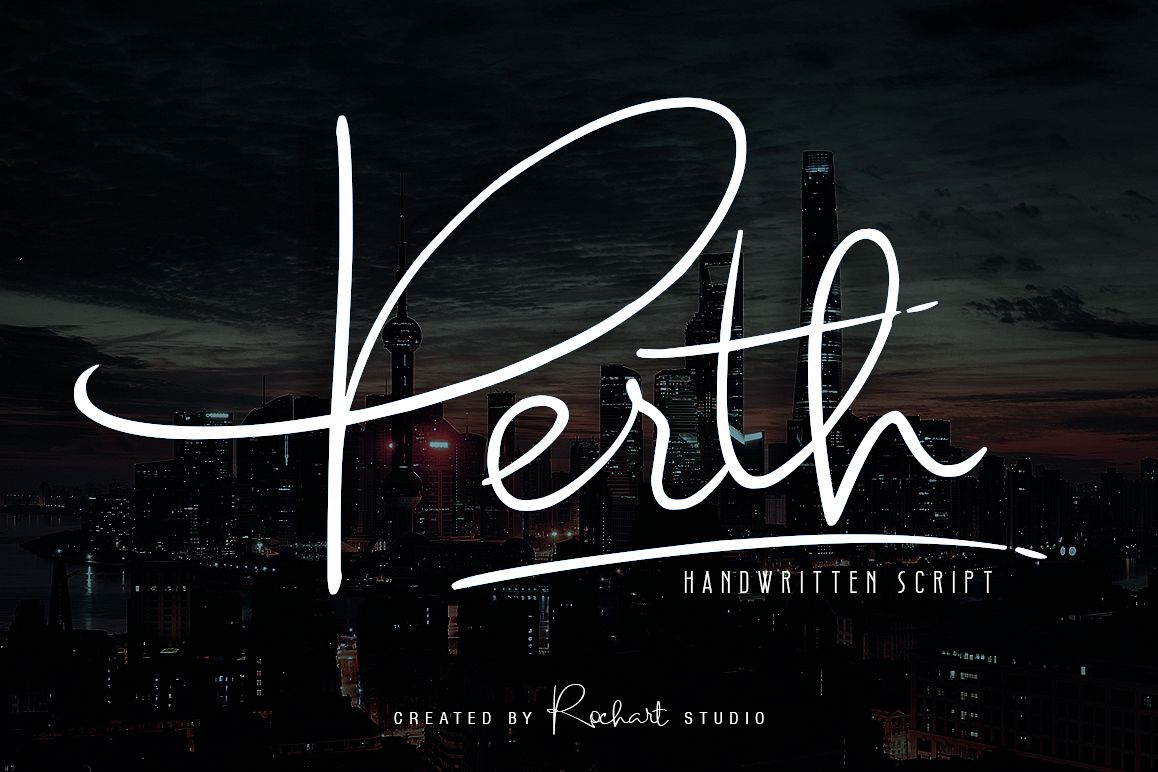
Perth Script
We introduce our new product called Perth handwritten script.
The Perth handwritten script is a modern Handlettering Signature font. We
give you a alternate and 78 of ligatures to make your design look more awesome.
Perth handwritten script has a multilingual Support.
Perth handwritten script is great for logotype, Branding Design, Logo
Design, Digital Lettering Arts, T-Shirt/Apparel, Poster, Magazine, Signs,
Advertising Design, wedding invitation and any hand lettered needs.
Perth handwritten script